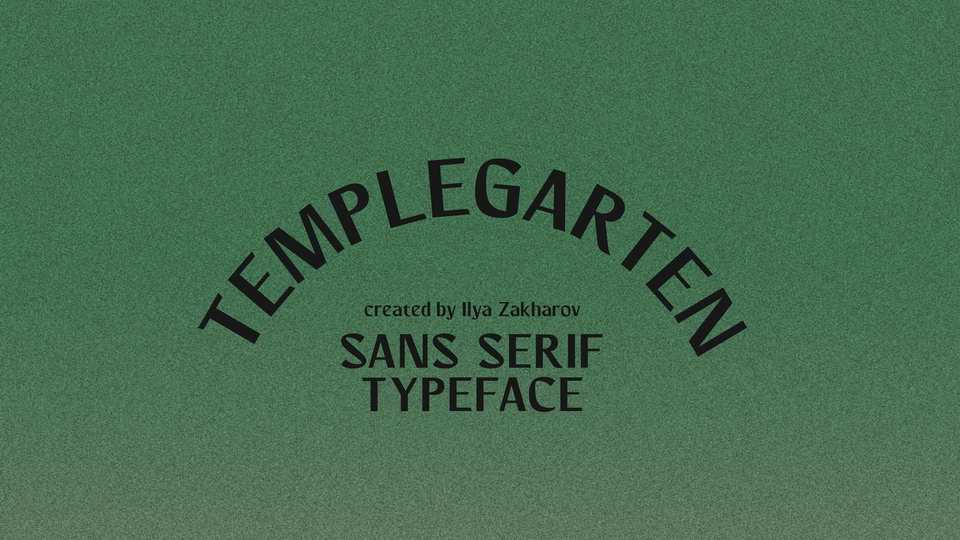
Download Templagarten font, a sans serif typeface with a gothic mood. Templagarten is especially useful for logos, headlines, posters, and artwork.
Designer: Ilya Zakharov